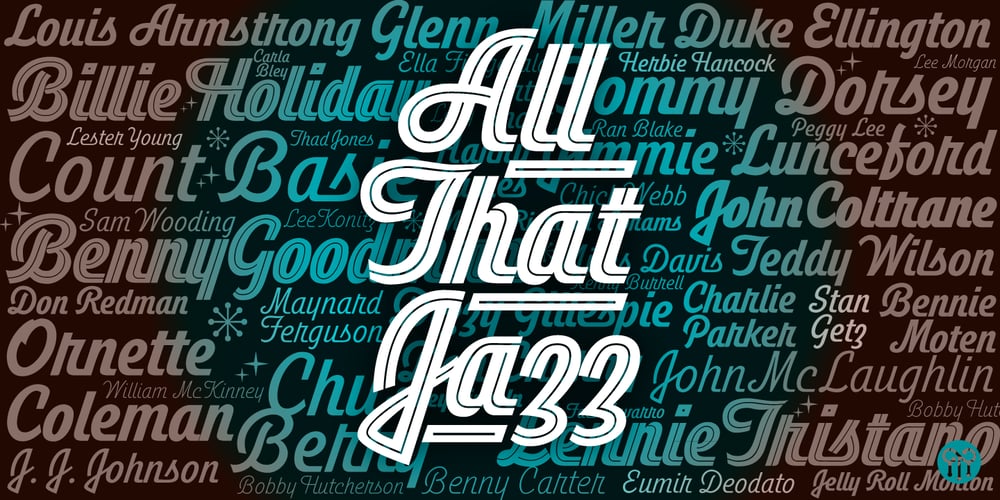
Duvall Font Family was designed by published by John Moore Type Foundry. Duvall contains 8 styles and family package options. Duvall is an idealization created from the Edward J. Duvall lettering. Mr. Duvall was a teacher in lettering, who was well known for his book “Modern Sign Painting” in the late 40s and early 50s. Duvall cursive script is presented in five weights, Duvall 1, as a light version, to Duvall 5 as a bold version, and Duvall Style a decorative typeface with Inline, ideal for set in color layers combined with Duvall 5. Duvall is a Script font with low contrast, not intended to be used as a type of reading, but is however well adapted to small sizes because its simple form is easy to read. It is advisable to use this font for large to medium sizes. Duvall is ideal for composition, ordinal, superior and inferior numbers, and thanks to the OpenType features you can compose with alternate characters, old style numbers and with a complete set of glyphs for Eastern and Western European languages. The Duvall set comes with a font called Duvall Ribbons, a dingbats font with which you can create interesting headlines with the taste of the advertising of the 50s. Duvall FunWords is a dingbats playing with funny words in English, French and Spanish phrases. Duvall is ideal for packaging, signs, banners, branding and graphic design in general and can be combined harmonically with your favorite sans fonts.